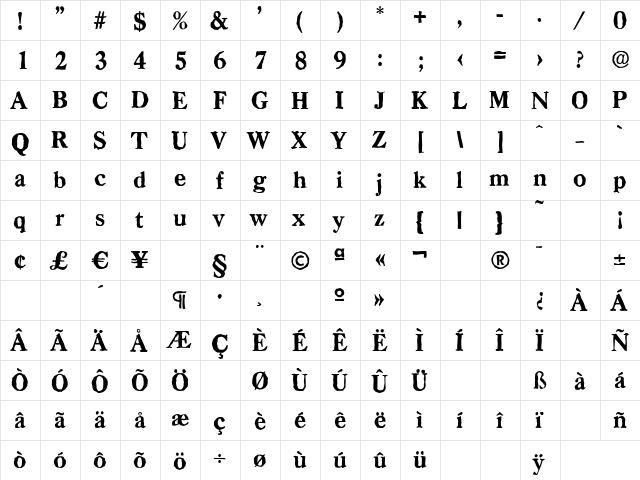
CasadAntique-Xbold Regular Font Preview
CasadAntique-Xbold Regular
Design Context for CasadAntique-Xbold Typeface
CasadAntique-Xbold has the warm character of retro typography — evoking diners, record sleeves, and the golden age of print advertising. The heavy weight commands attention and anchors typographic hierarchies.
Font Pairing: Combine CasadAntique-Xbold with a simple slab or neutral sans — period-accurate companions reinforce the vintage feel without competing for attention.
Pro Tip: Use CasadAntique-Xbold for headlines and pull quotes rather than body copy — its personality is best appreciated in short, focused bursts.